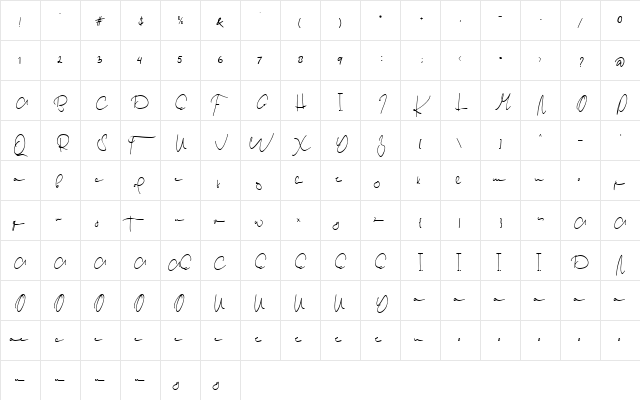
english Regular
Design Context for english Typeface
english is a composed and adaptable typeface that performs quietly and consistently across a wide range of design contexts.